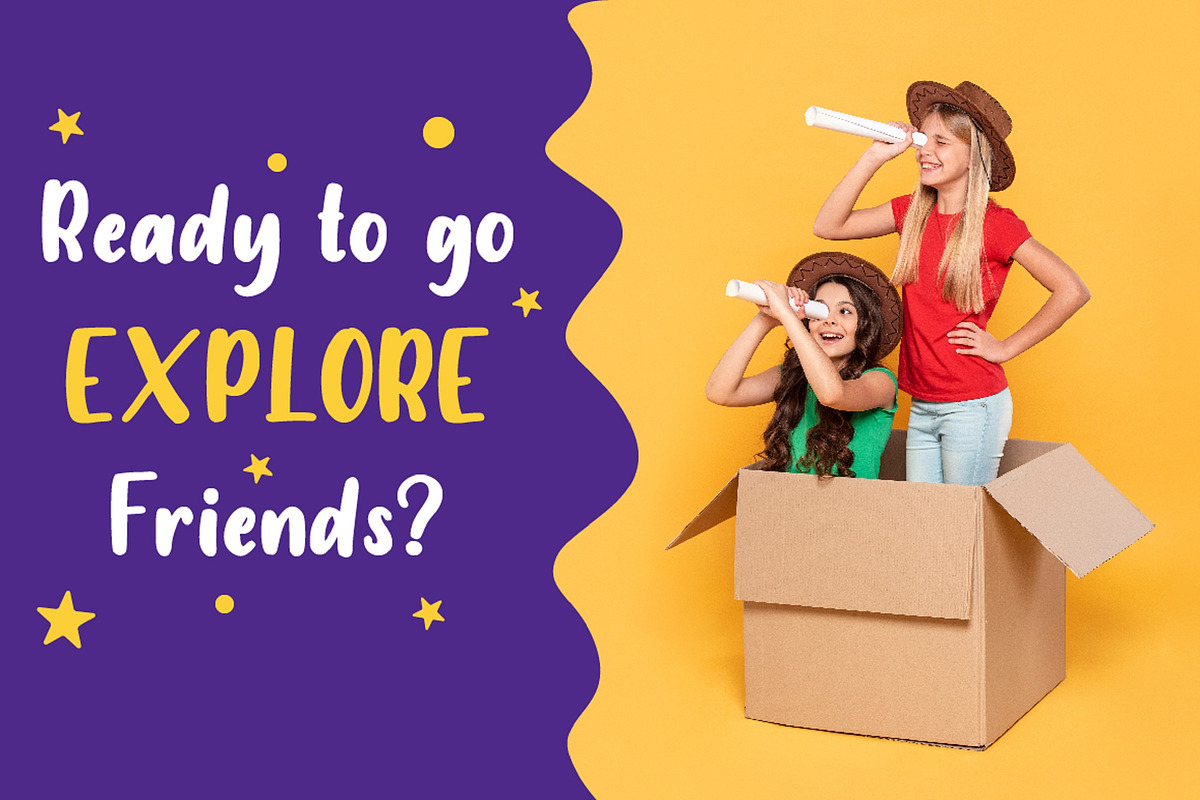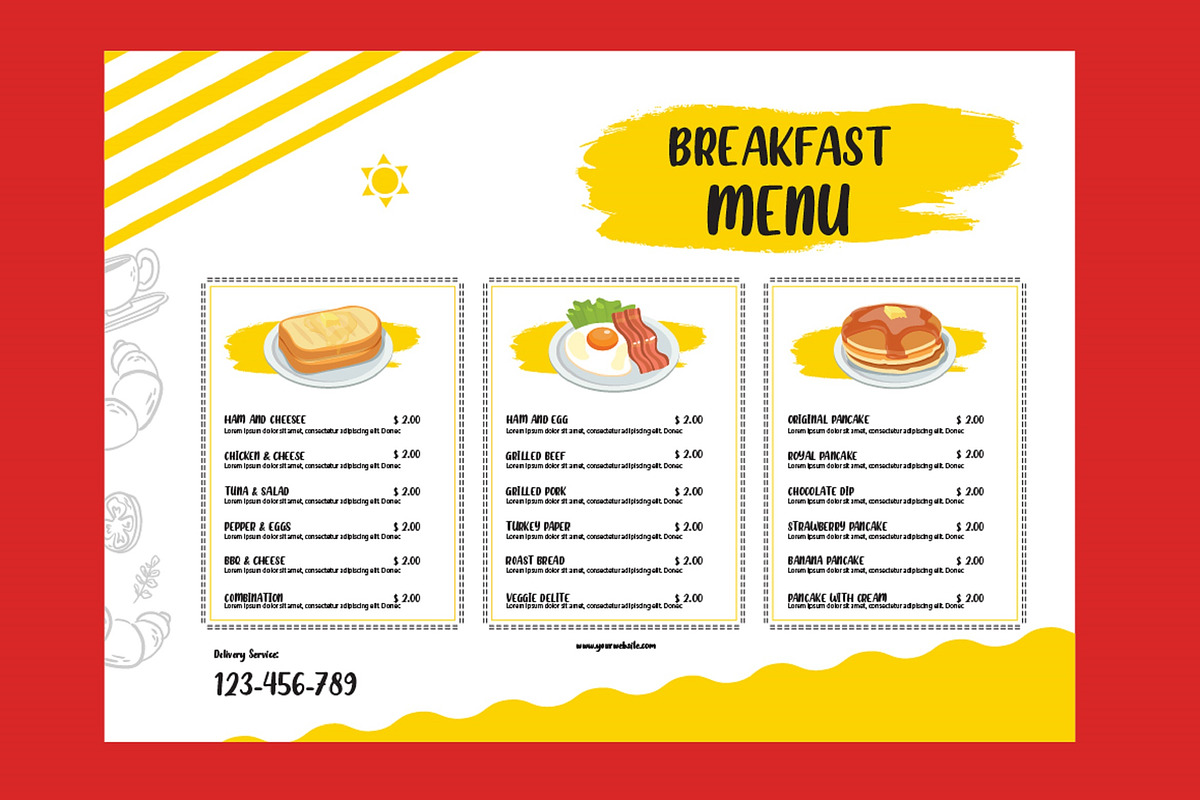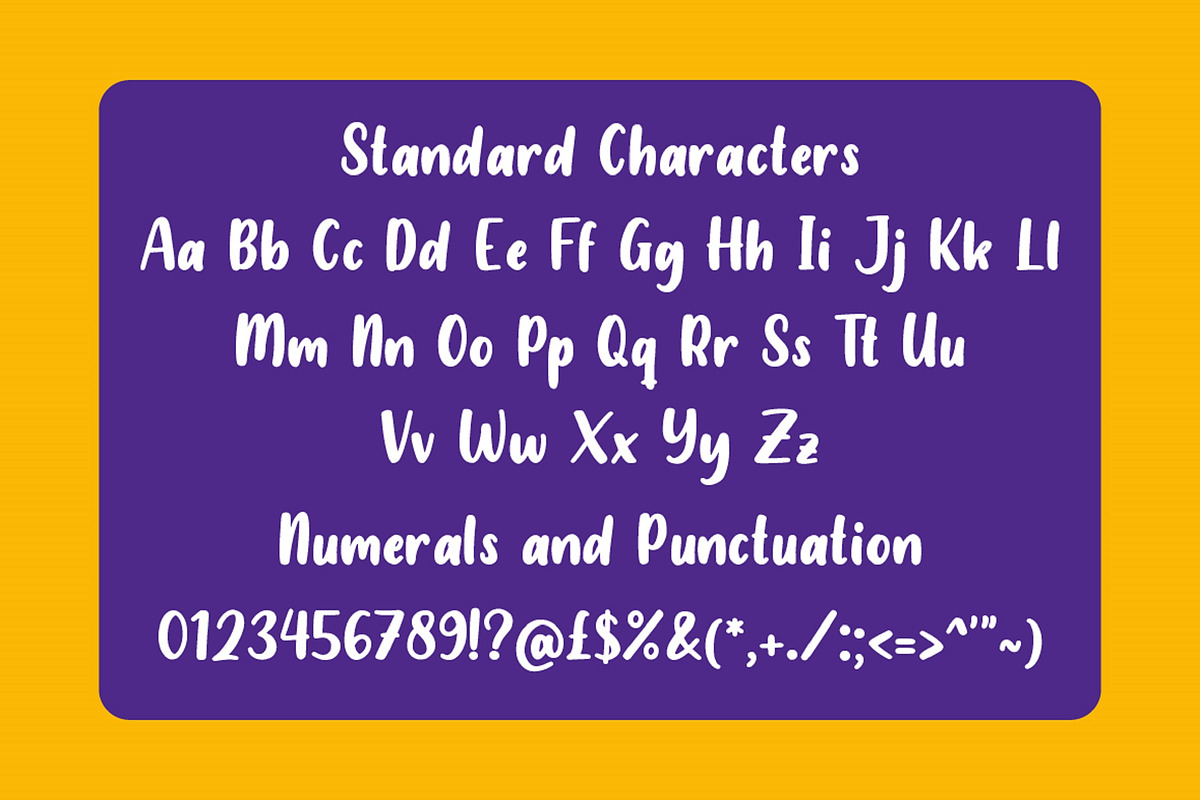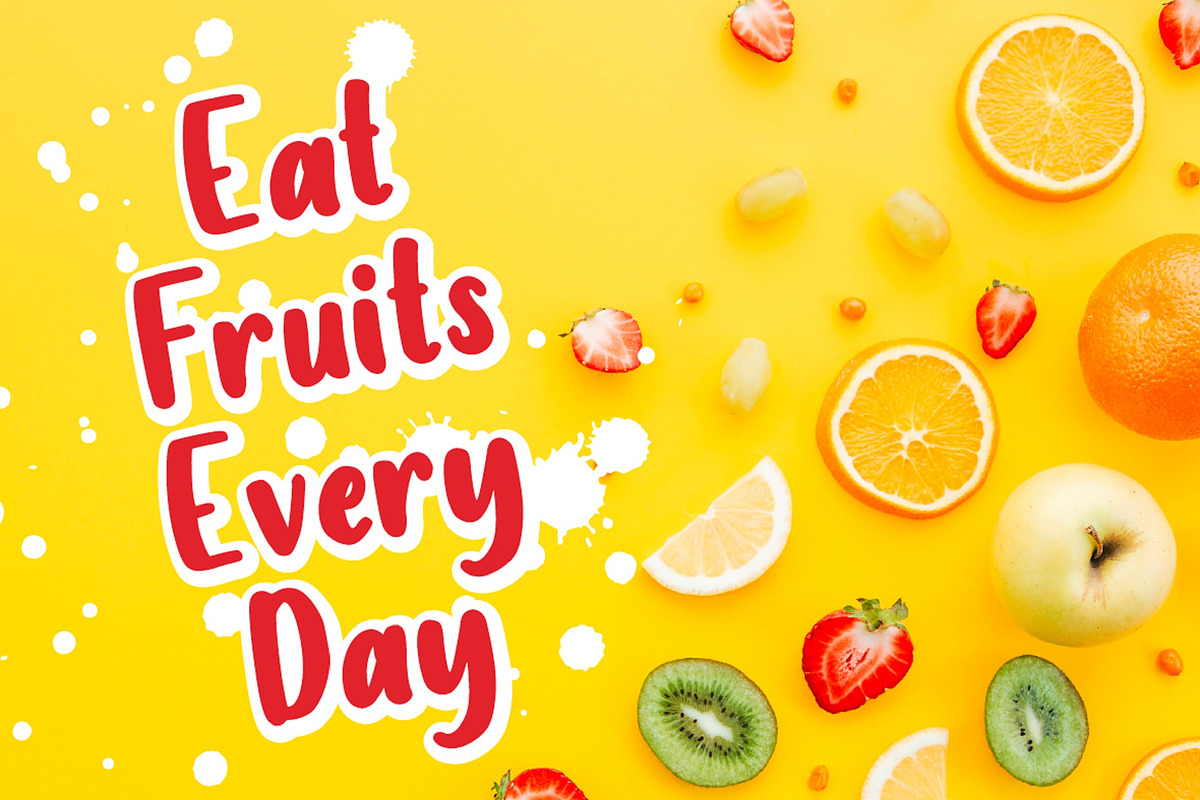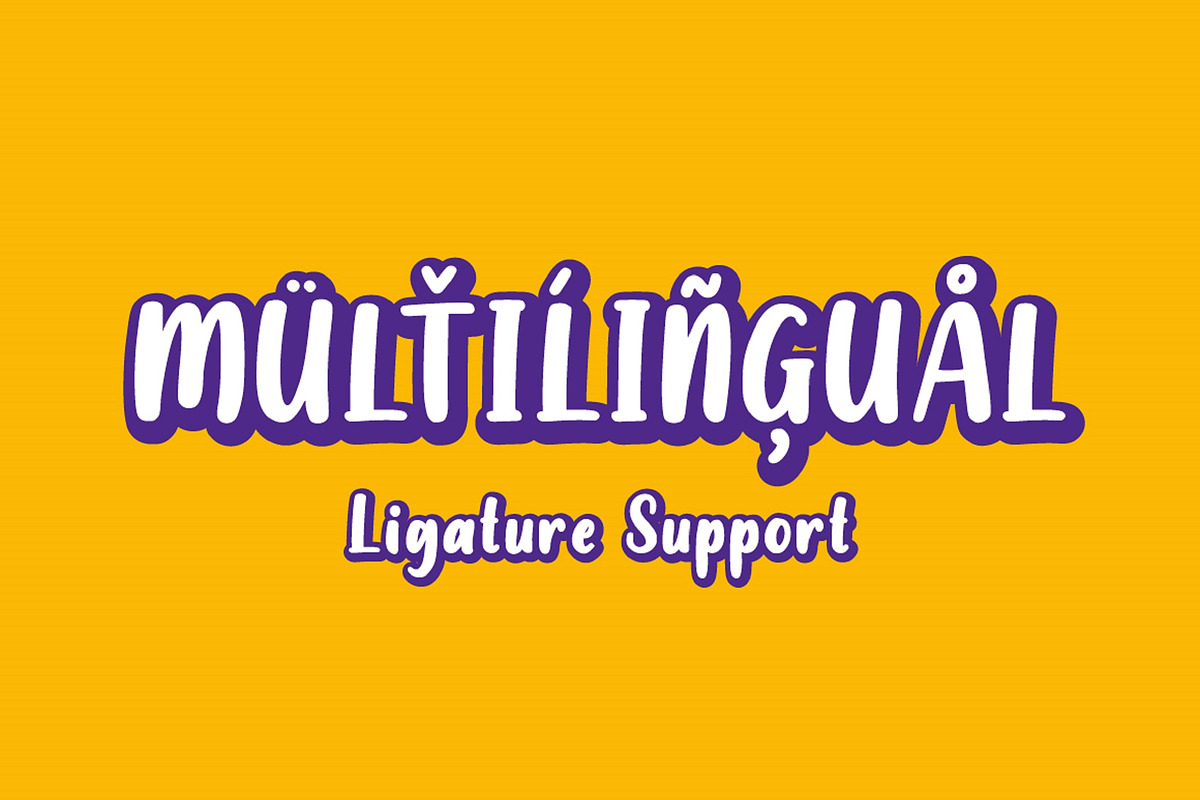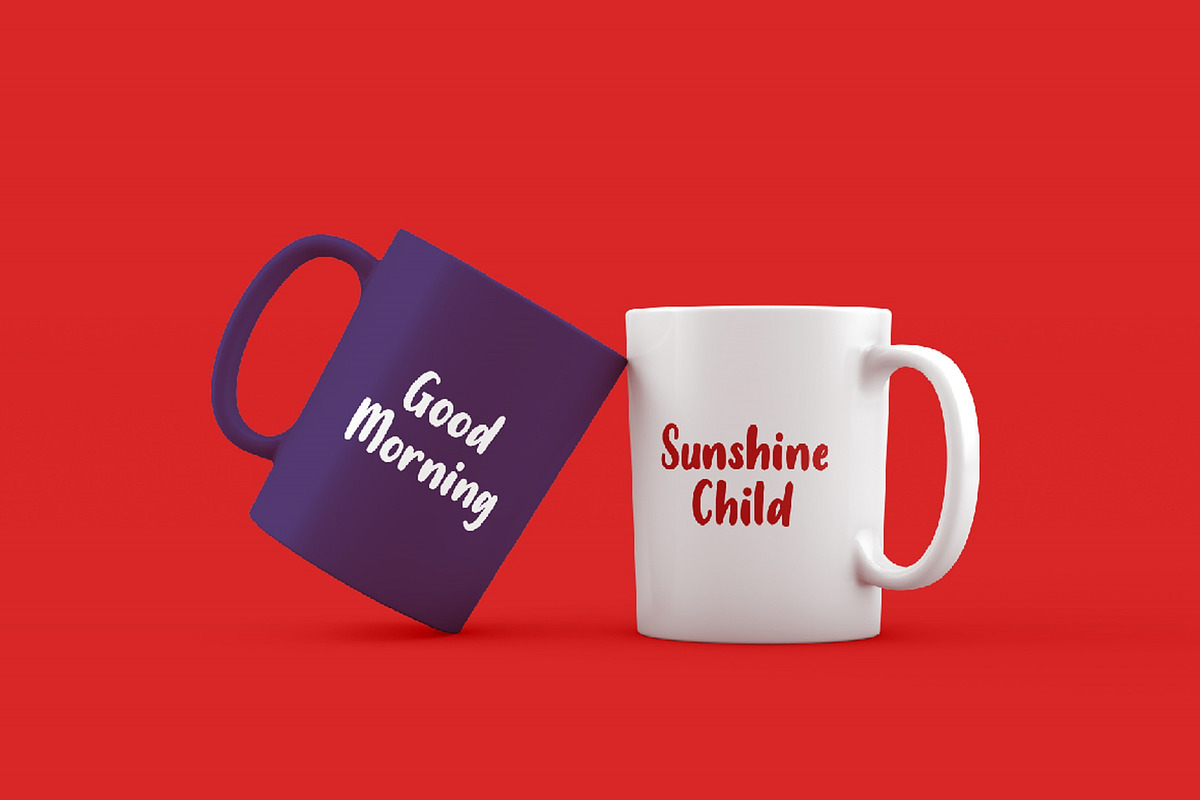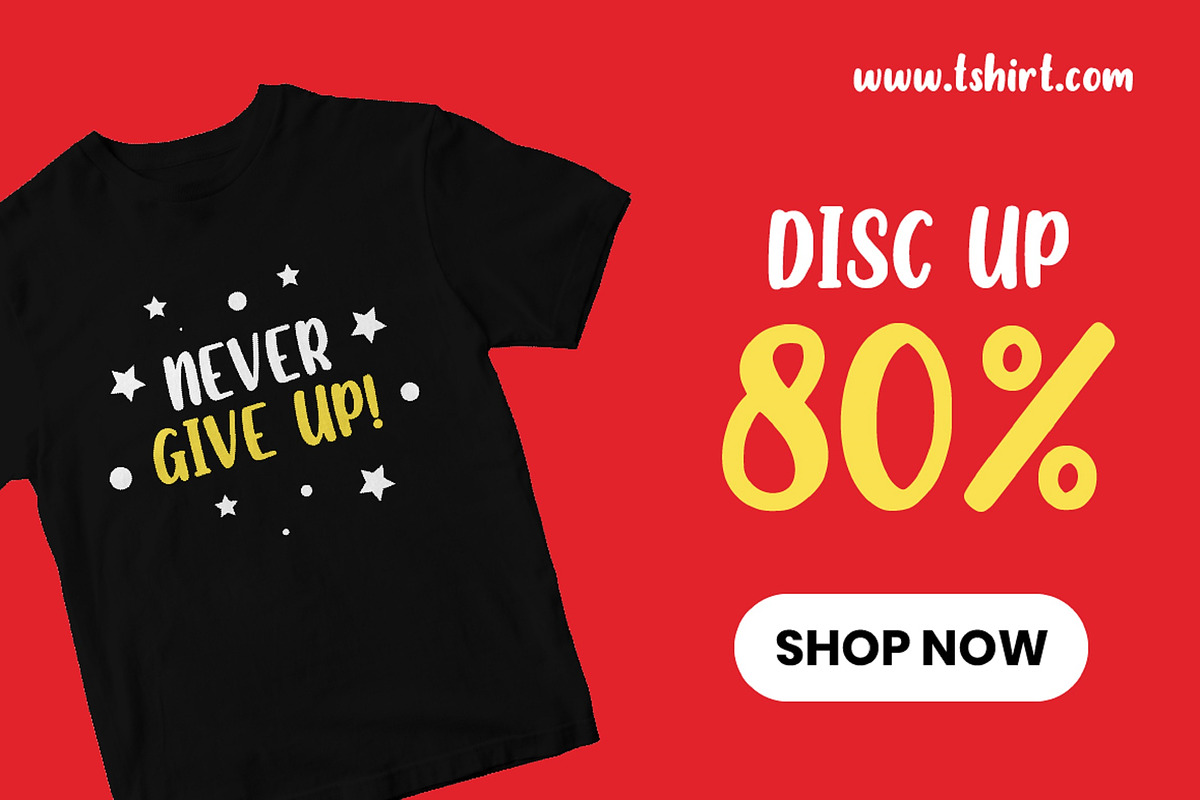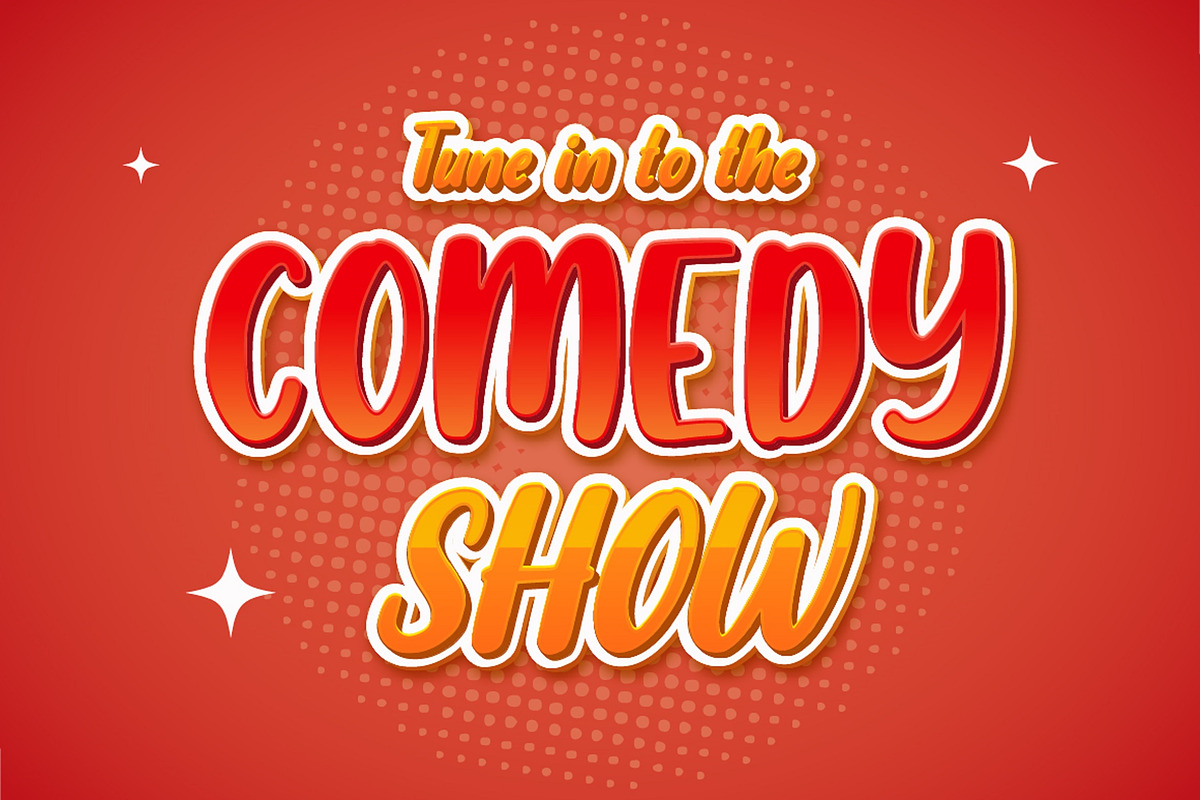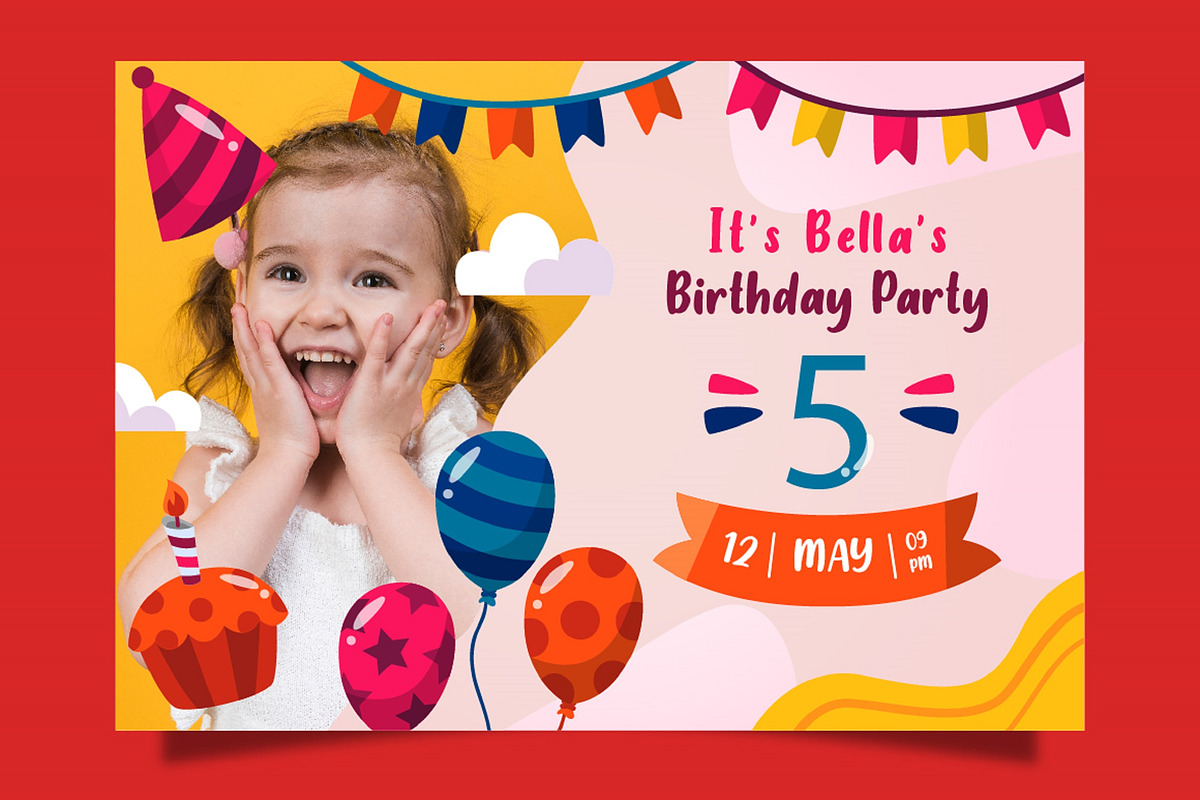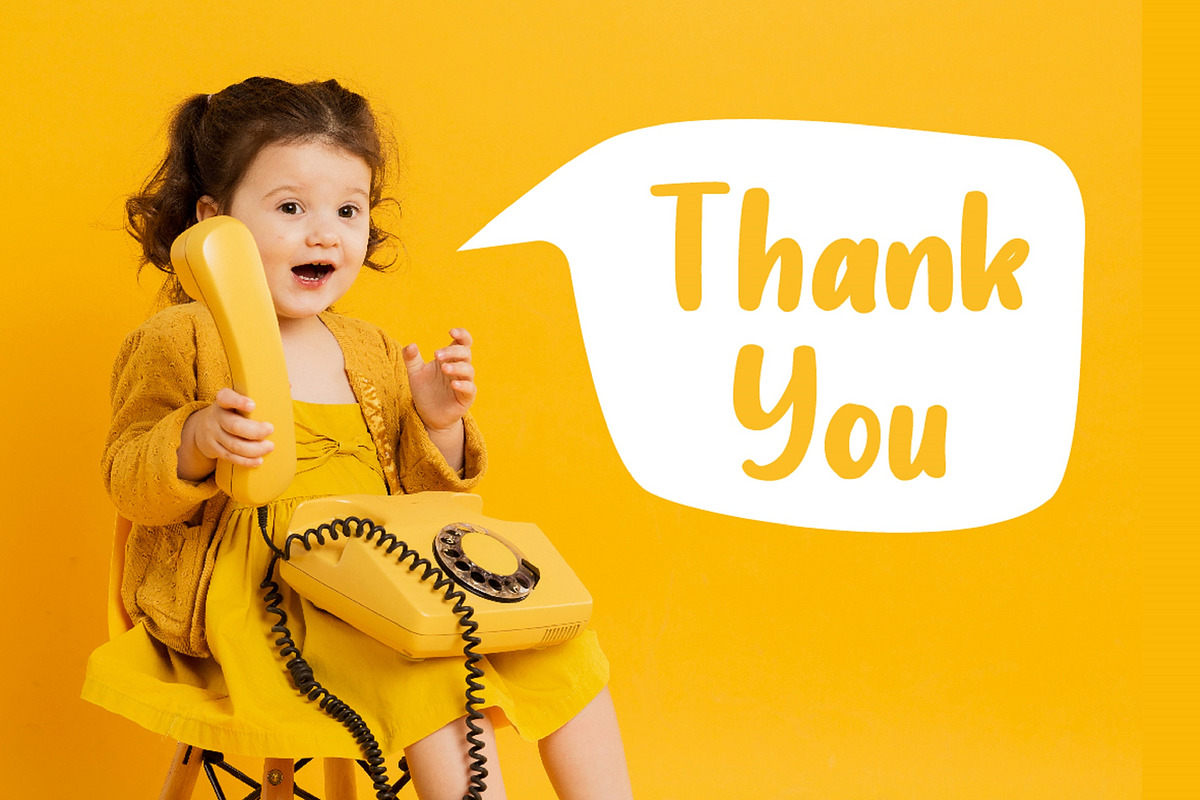
Handwritten Font
Looking for a fun and bold font to captivate your audience, clients, or party guests?
Ready to embrace your childish enthusiasm and spark? If you need to create kids’ party invitations, have a t-shirt branding company, or need to create a new menu - then this is the perfect font for you.
Introducing Balloo Walloo - A Handwritten Font.
This bold, fun, and modern font can be used for a variety of different content needs and projects. Use it for your headings, logos, e-books, ads, printed quotes, invitations, packaging, resumes, and even your website or social media branding.
Inspire your audience, clients, or guests with this versatile, statement font.
- Multilingual & Ligature Support
- Full sets of Punctuation and Numerals